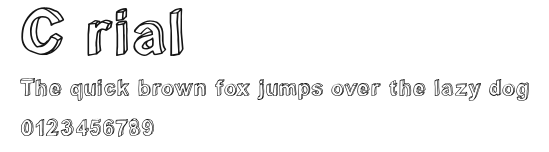
• Font Name: C rial
• Designer: J O E B O B graphics
About C rial.otf
C rial.otf is a modern, elegant sans-serif font designed for ultimate readability and visual harmony. Perfect for branding, headlines, web design, and print materials.